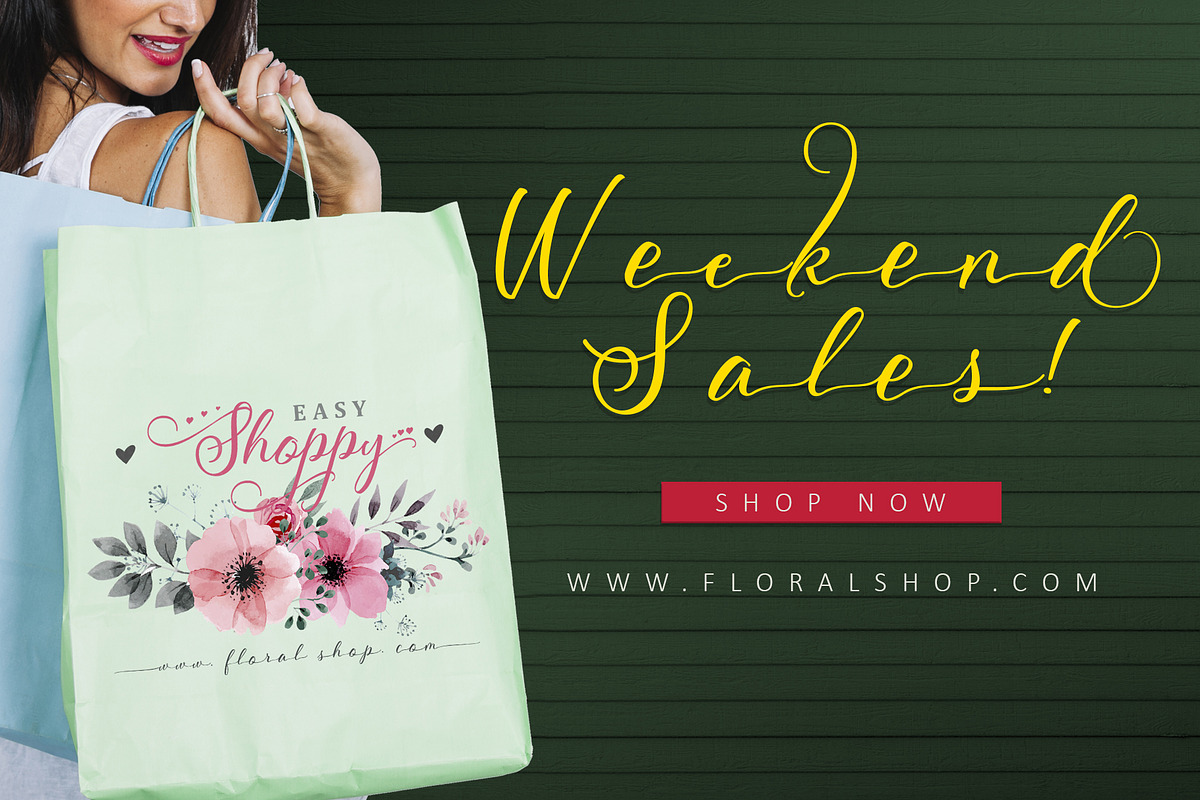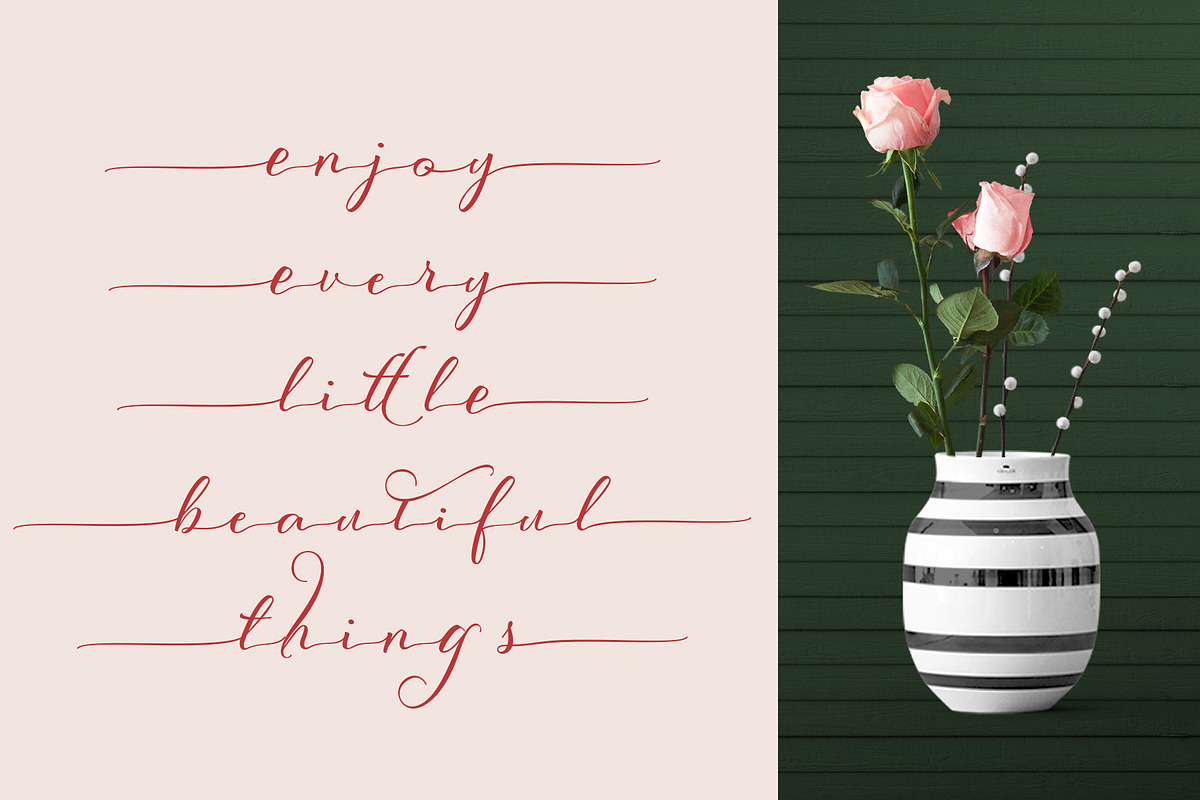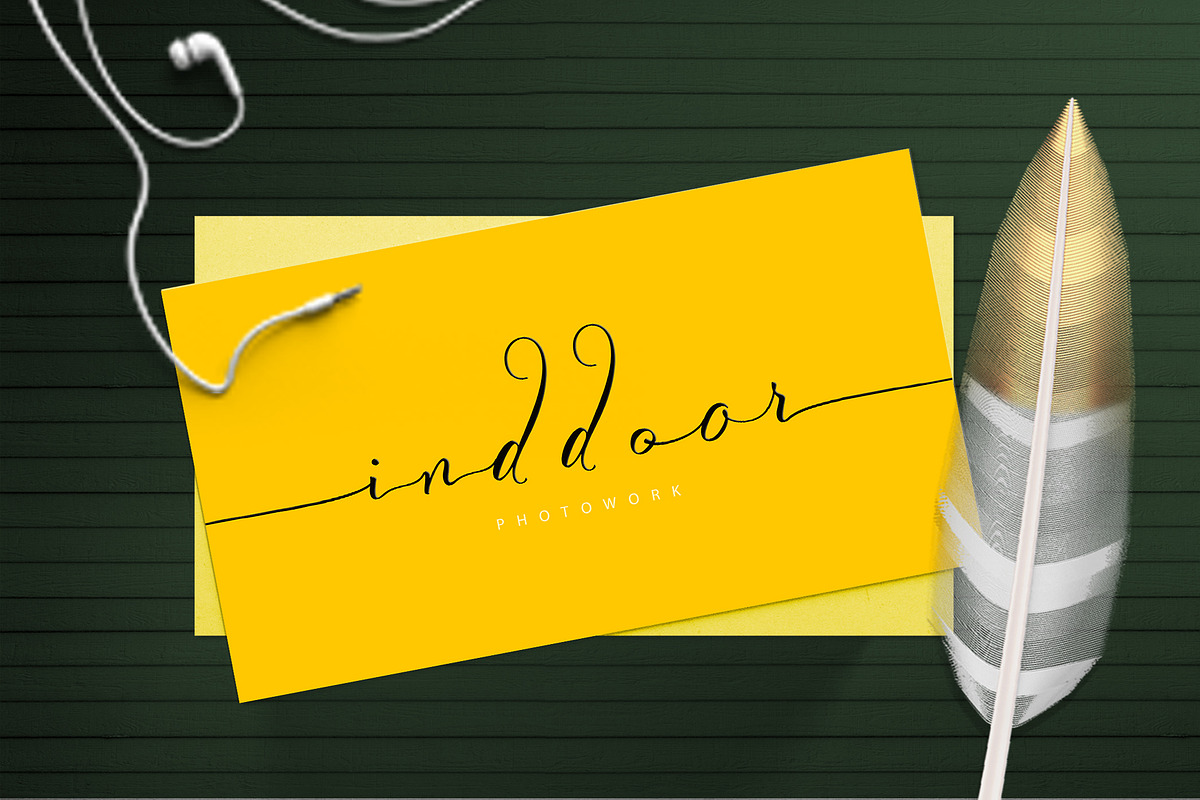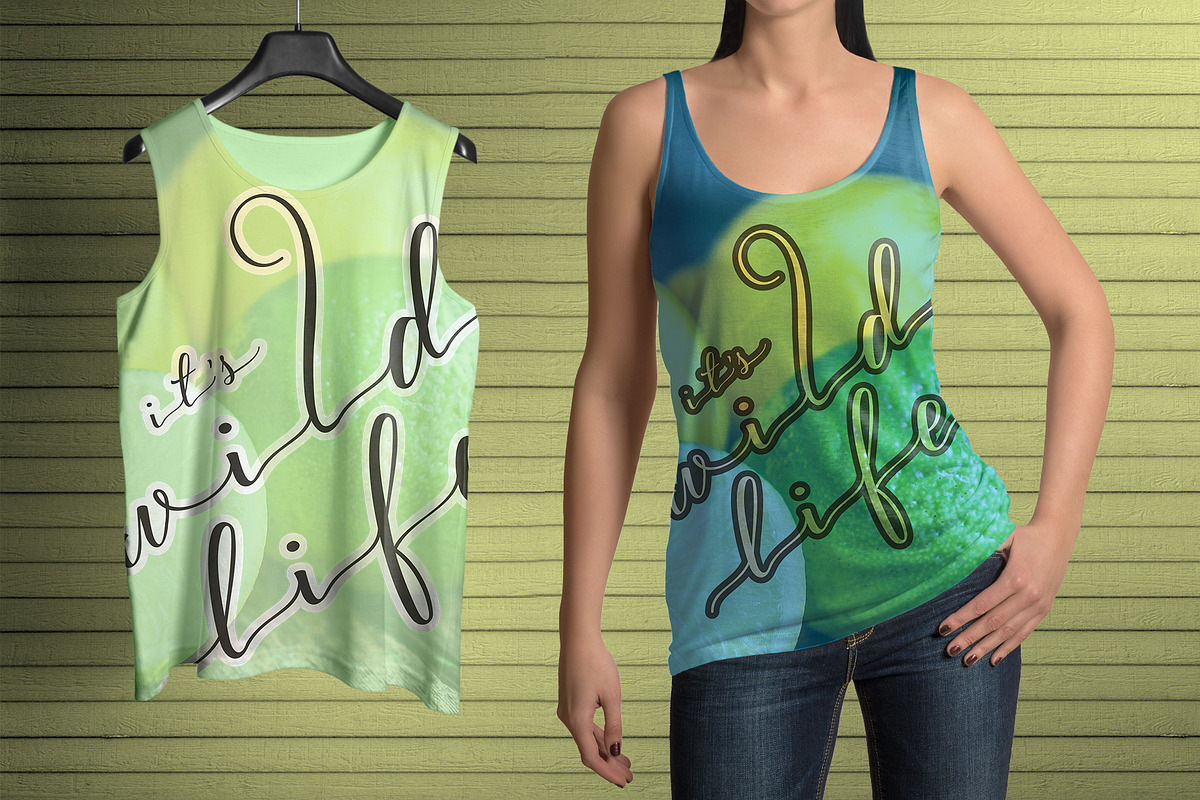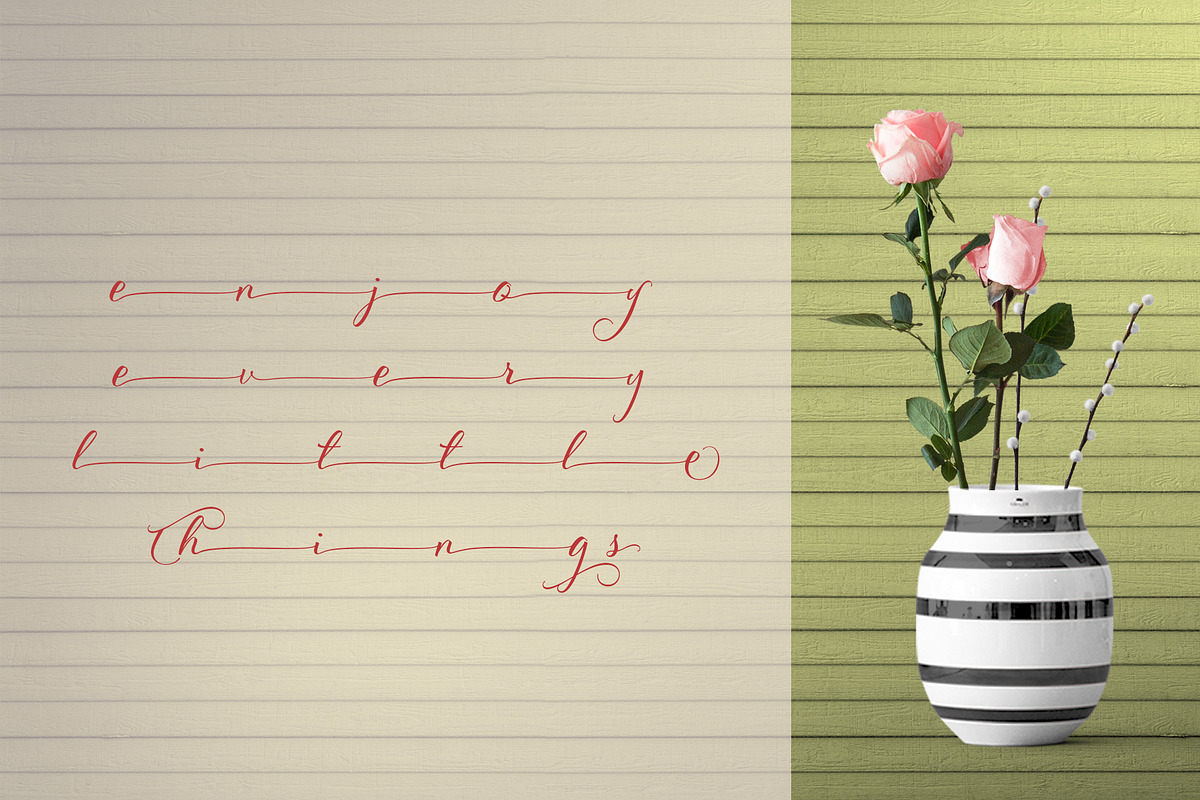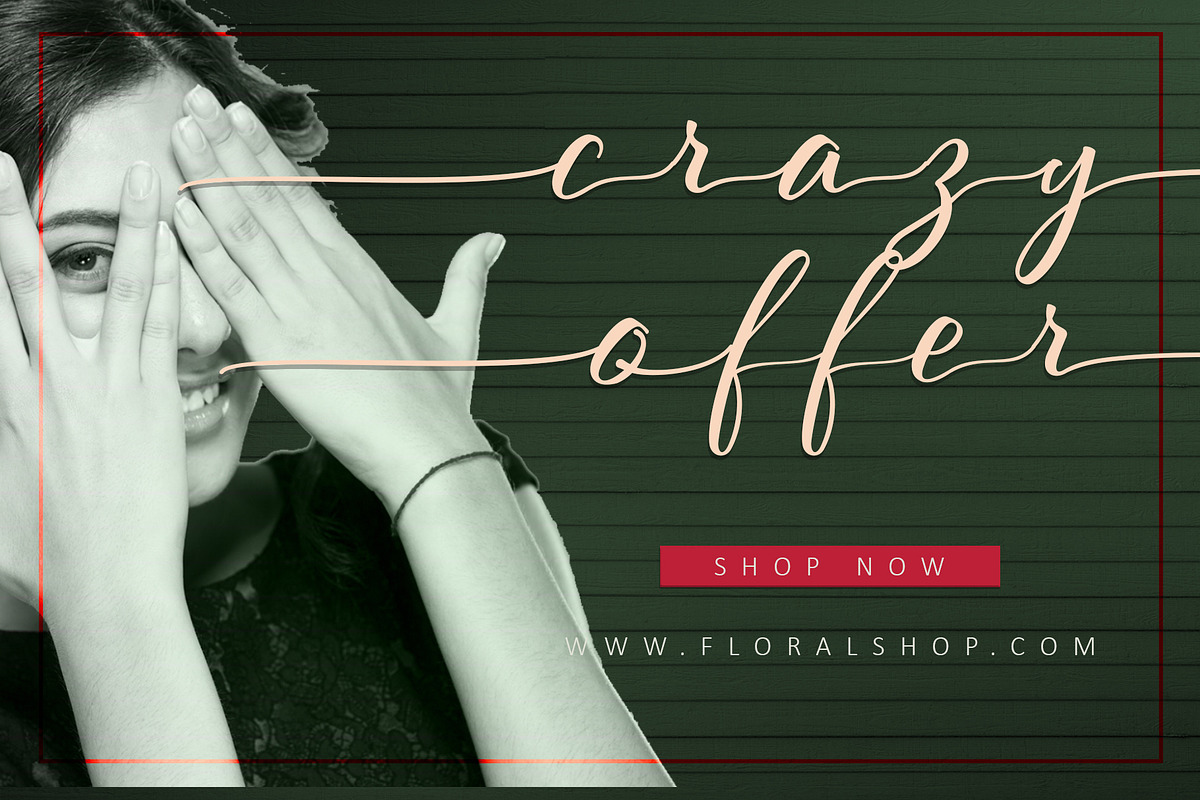
Scriptic Wilder
SCRIPTIC WILDER is a new modern typeface with hearts variation at the beginning, middle and at the end of a word, tailing style, long stepping and fly, built together Scriptic and Wilder in 1455 glyphs to save your money. It has opentype features with PUA encode. of course this is a smart font works with poluler design software like Photoshop, Coreldraw, Illustrator, Microsoft Office, ect. This Modern typeface welcomes you to use it for various purposes such as logo, card, wedding invitation, headings, signatures, t-shirt, letterhead, cutting, hot stamping, signage, labels, posters and more.
OPENTYPE TECHNOLOGY:
- Stylistic alternate
- Contextual alternates
- Stylistic Set
- Discretionary Ligatures
- Contextual Ligatures
- Initial form
- Medial form
- Terminal form
- Punctuations
- Ornament
- Multilanguage Supported